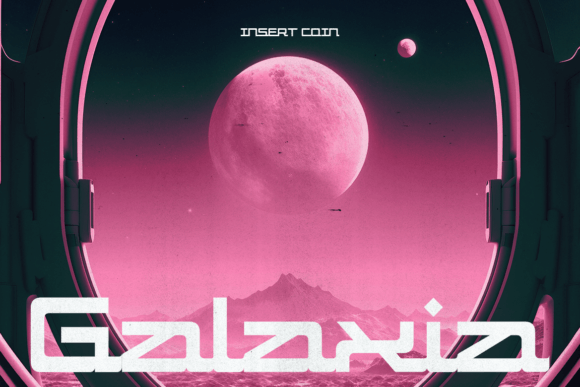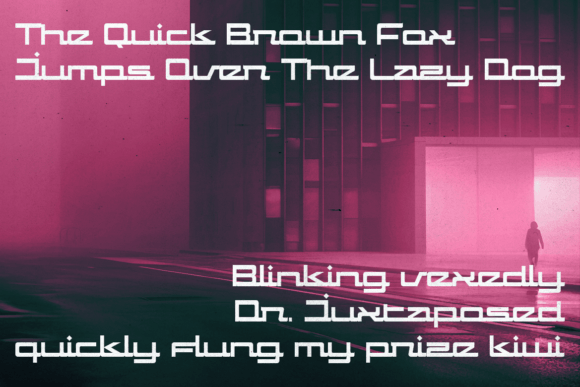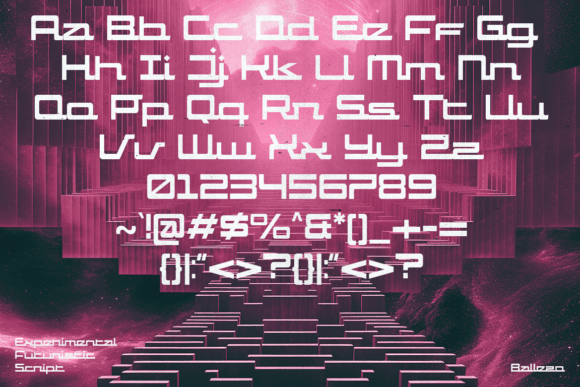
Welcome to the World of Ballezo: Where Ancient Meets Neon
Imagine a world where ancient calligraphy dances with neon lights, where the wisdom of the past meets the thrill of the future. This is the realm of Ballezo, the font that shatters boundaries and redefines what scripts can be. Inspired by the elegance of Middle Eastern lettering and the electrifying energy of cyberpunk, Ballezo is an experiment in typography – a rebellion against the ordinary.
A Design Moment: The Struggle is Real
I recall working on a project for a futuristic-themed event, determined to find the perfect font that would capture the essence of innovation and tradition. Hours turned into days, and days into weeks, as I scrolled through font libraries, searching for that elusive match. The designs either felt too bland, too cliché, or just not right. That’s when I stumbled upon Ballezo – a game-changer in the world of typography.
What I Love About Ballezo
- ✨ Elegant yet Edgy: Ballezo strikes a perfect balance between elegance and edginess, making it versatile for various design projects.
- ✅ Rich in Features: With OpenType features, glyphs, and stylistic alternates, Ballezo offers a wide range of creative possibilities.
- 🔥 Eye-catching: The unique blend of traditional and futuristic elements makes Ballezo a showstopper in any design.
While Ballezo is a remarkable font, there are a few things to consider:
- 🤔 Legibility at Small Sizes: Ballezo’s intricate details can make it less legible at very small font sizes. It’s best used at larger sizes where its features can shine.
- ⚠️ Pairing Challenges: Due to its distinctive style, Ballezo can be challenging to pair with other fonts. Choosing complementary fonts requires careful consideration.
Ballezo was born from a vision to merge the timeless beauty of ancient scripts with the boldness of neon cyberpunk aesthetics. Inspired by the intricate patterns of Middle Eastern calligraphy and the electrifying landscapes of futuristic cities, Ballezo’s designer aimed to create a font that embodies both wisdom and rebellion. This blend results in a typography that not only stands out but also tells a story of contrasts and harmony.
Q: What makes Ballezo unique?
A: Ballezo’s uniqueness lies in its fusion of traditional Middle Eastern calligraphy with a futuristic cyberpunk aesthetic, making it a standout in the world of typography.
Q: Can Ballezo be used for body text?
A: While Ballezo is stunning for headlines and titles, its intricate details may not be ideal for body text, especially at smaller font sizes.
Q: Is Ballezo suitable for branding?
A: Absolutely! Ballezo’s distinctive style makes it perfect for brands looking to make a bold statement and stand out in their industry.
Q: Does Ballezo support multiple languages?
A: Ballezo is designed with a focus on English and similar languages. For languages with significantly different character sets, compatibility may vary.